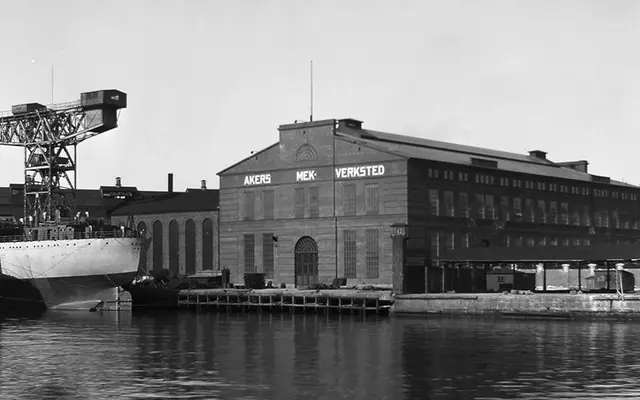
Store Norske Mekaniske
A display typeface drawn from early twentieth-century workshop lettering at Norway's largest shipyard, Aker Mekaniske Verksted in Oslo.
Arve Båtevik's typeface traces its origins to photographs of lettering at Akers Mek., the Oslo shipyard founded in 1841 that grew to become Norway's largest before closing in 1982. The source material, documented around 1930–1931 by photographer Anders Beer Wilse, gives the design a direct industrial character that sits apart from conventional revivals. Language support spans Western and Northern European scripts including Nordic and Sami languages, and OpenType features include alternates, ligatures and localised forms.
Derived from workshop lettering at Aker Mekaniske Verksted circa 1930–1931, the typeface carries the functional, stencil-adjacent character of industrial signage rather than any conventional text or grotesque tradition.